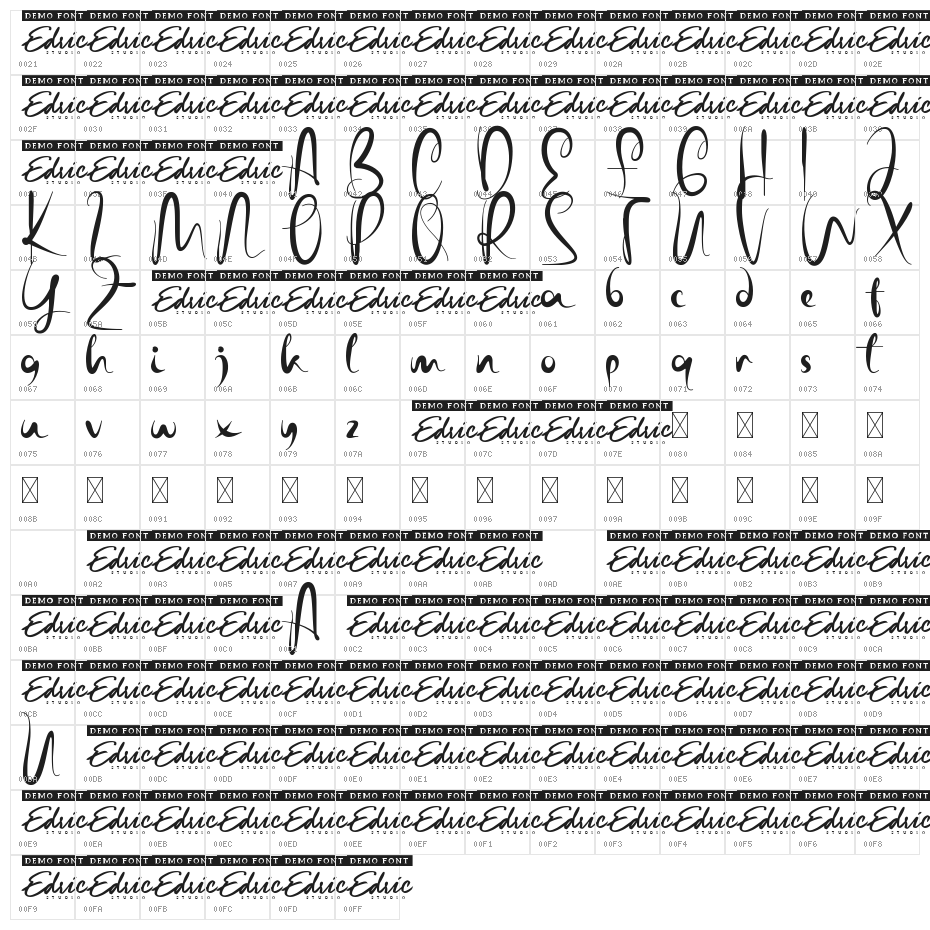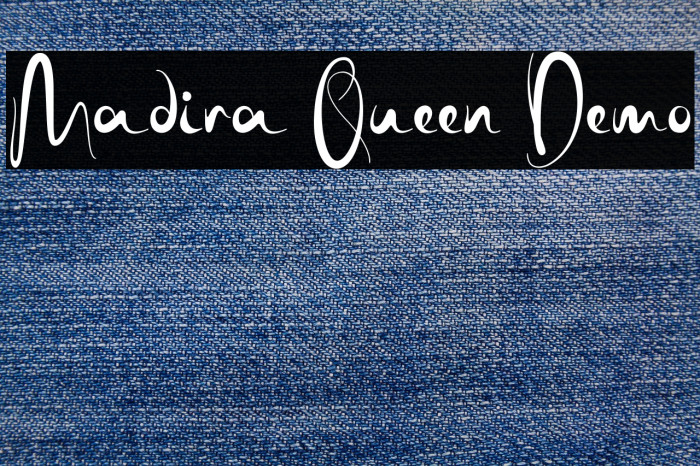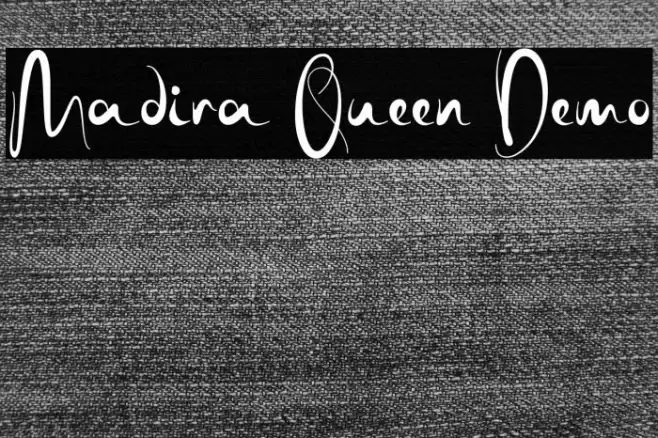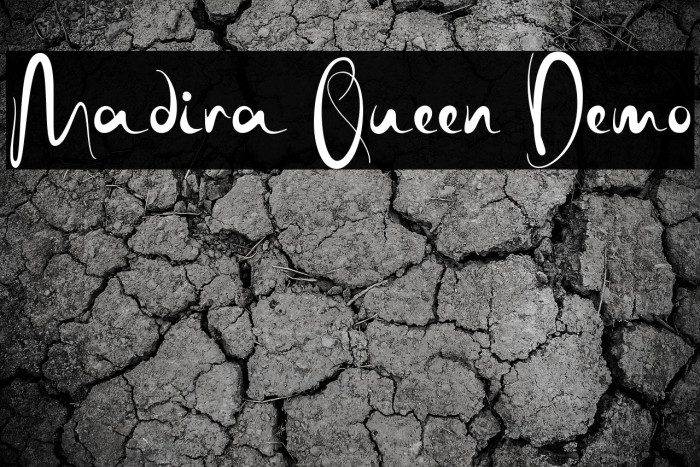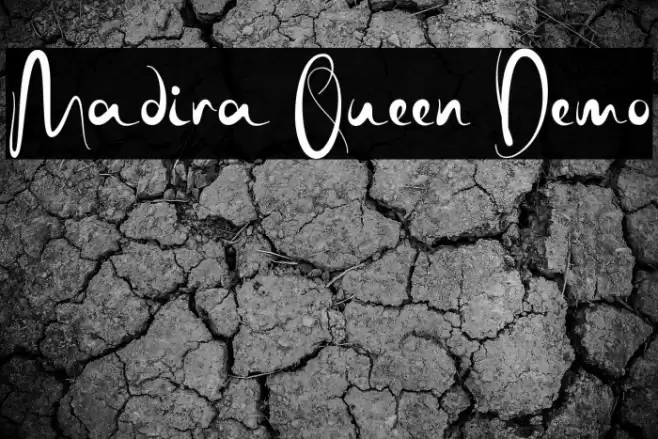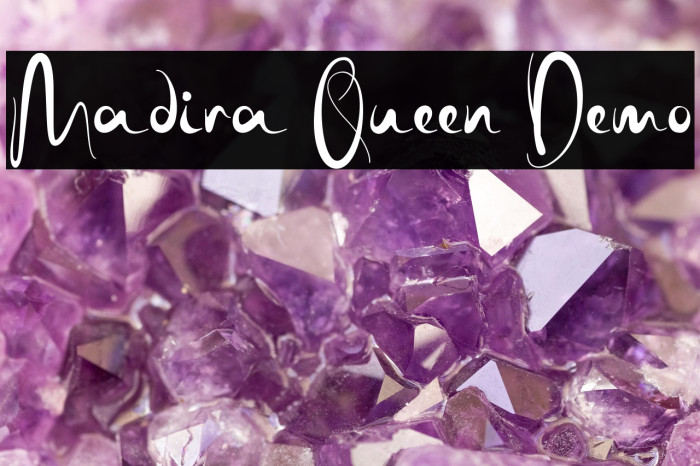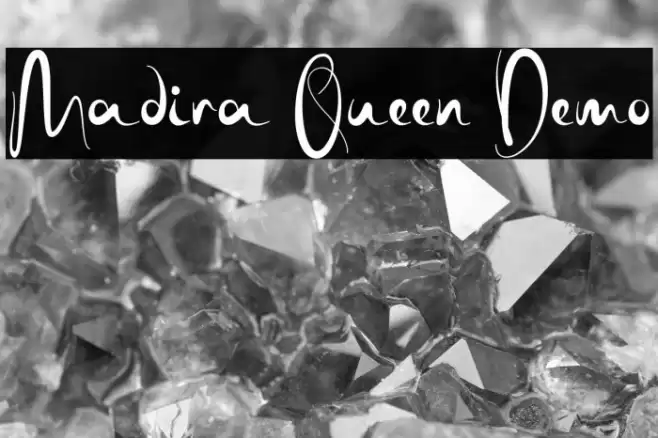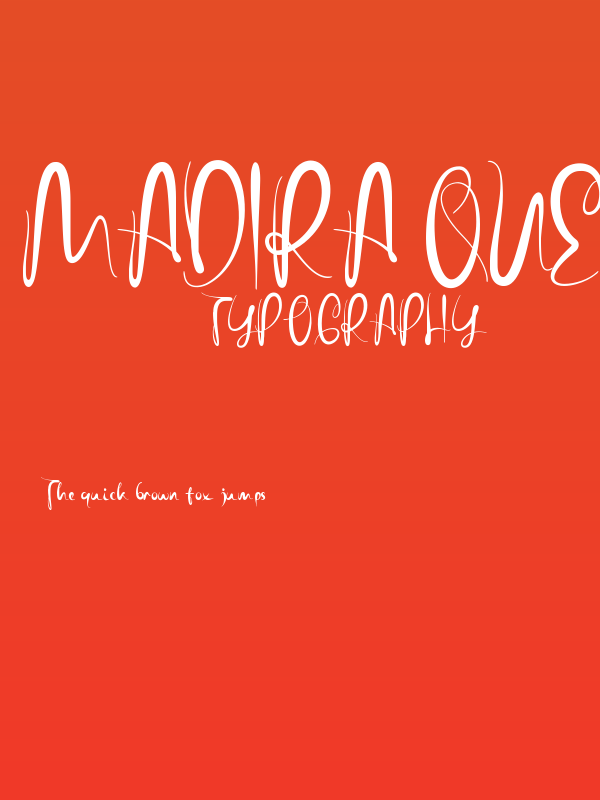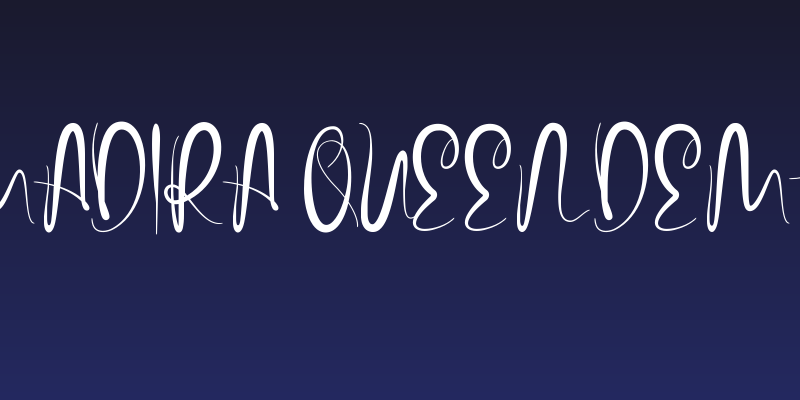
Madira Queen Demo Font
Madira Queen Demo Description
This font features a unique and artistic script style with a playful and elegant flair. The uppercase letters are characterized by their tall, slender forms with sweeping curves and loops, giving them a whimsical yet sophisticated appearance. The lowercase letters maintain a consistent flow with smooth, rounded edges and a slightly exaggerated baseline, enhancing the font's charm. The numerals and special characters are designed to complement the overall aesthetic, ensuring a cohesive look across all text. This font's distinctive style makes it ideal for creative and expressive design projects.